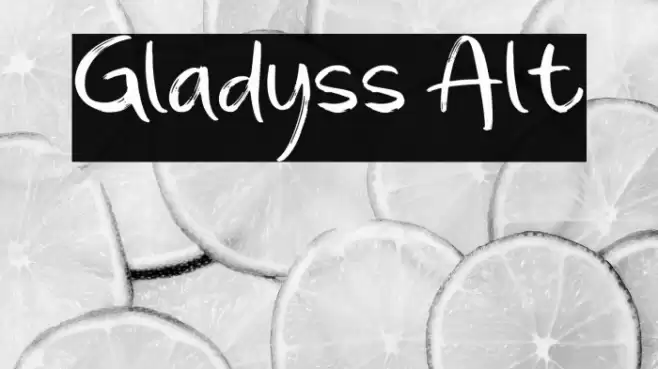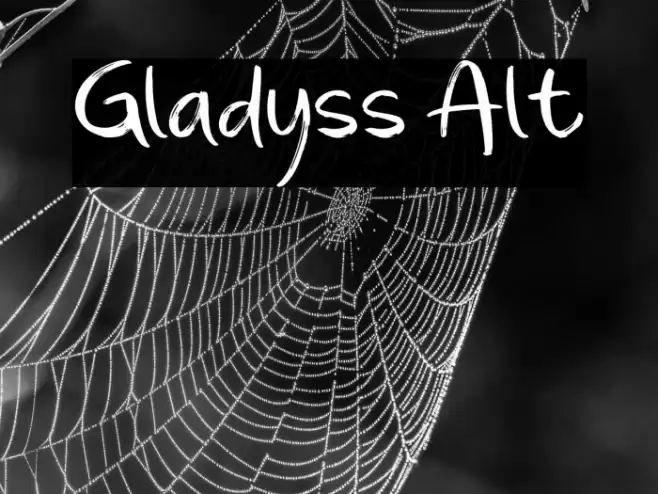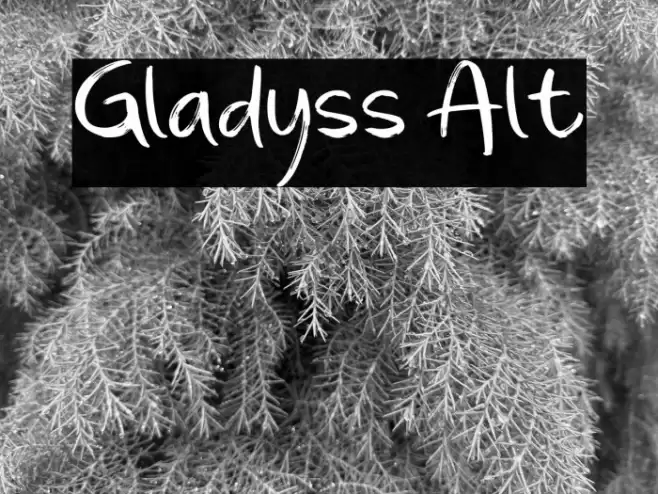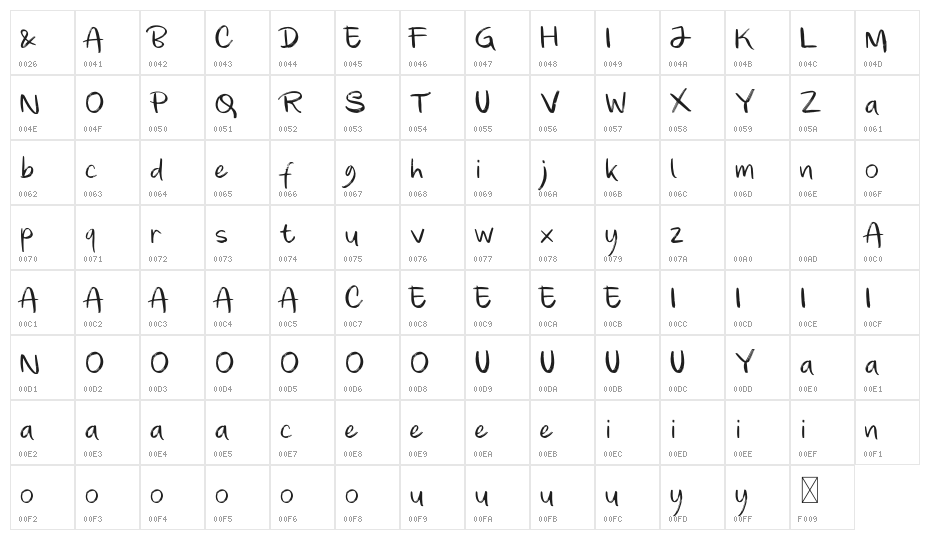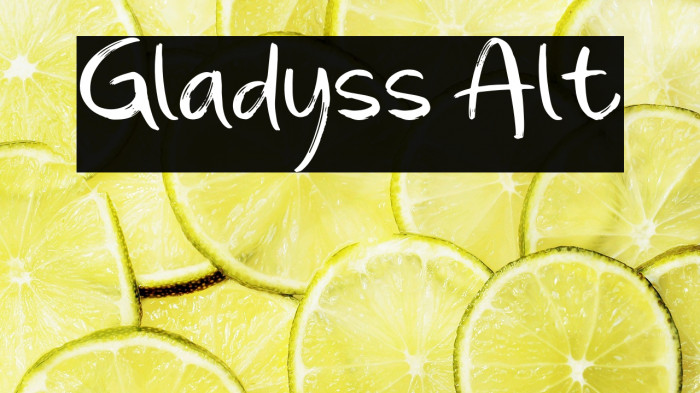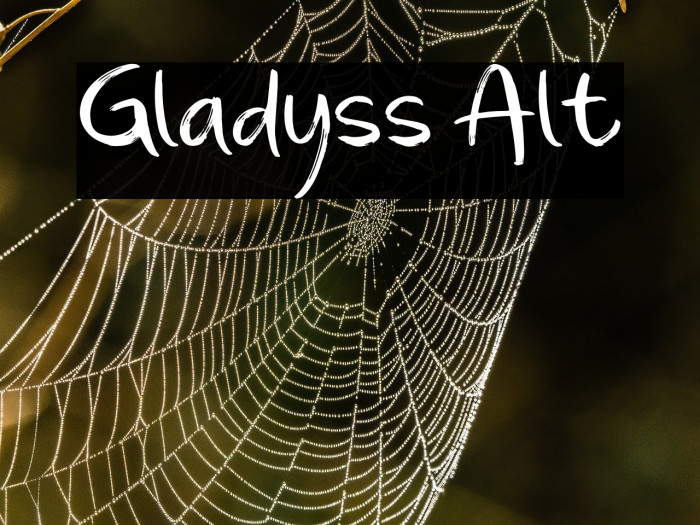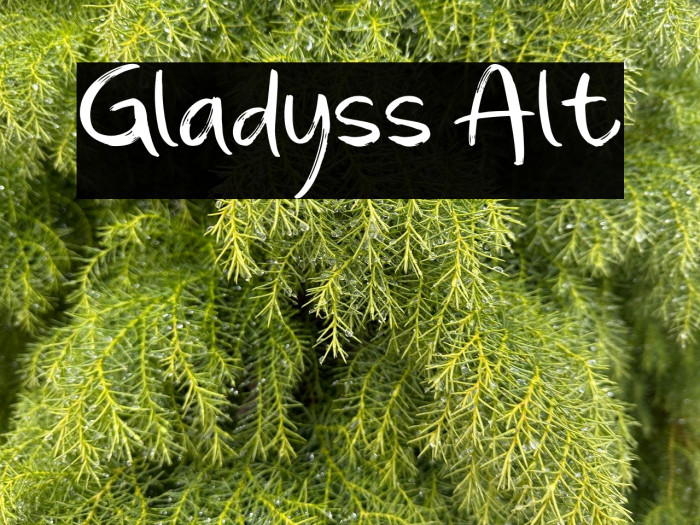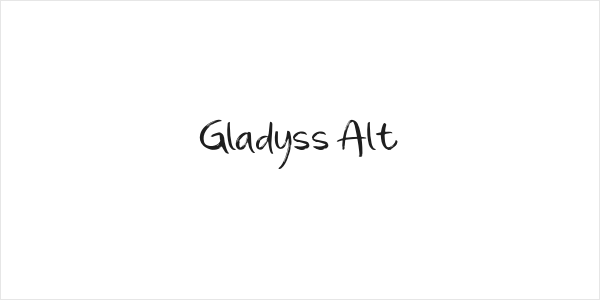
Gladyss Alt Font
Gladyss Alt Description
This font features a bold, brush-like style with a dynamic and energetic appearance. The strokes are uneven, giving it a hand-drawn, artistic feel. The uppercase letters are tall and slightly condensed, while the lowercase letters maintain a consistent flow with a slight slant, adding to the casual and informal look. The font lacks traditional serifs, emphasizing its modern and freeform nature. The characters are well-spaced, ensuring readability despite the playful design. This font is ideal for creative projects that require a personal touch.
A bold, brush-style font with a dynamic, hand-drawn appearance from Uncategorized fonts.
- Proposed Projects: Ideal for posters, branding, social media graphics, and creative projects requiring a personal touch.